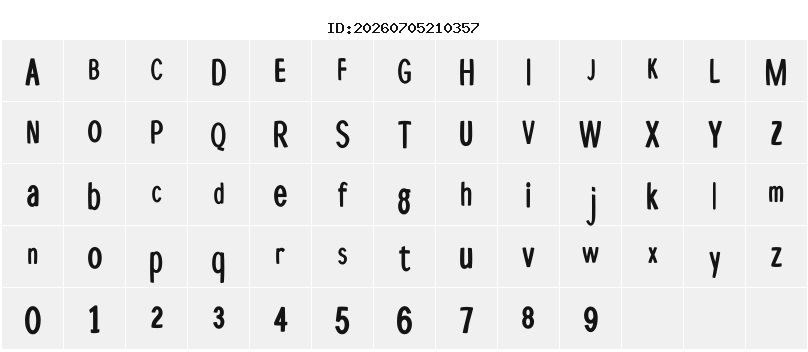
DisProporzBold. Preview
• Font Name: DisProporzBold.
• Full Font Name: DisProporzBold. Bold
• PostScript Name: DisProporzBold.-Bold
About DisProporzBold..ttf
DisProporzBold..ttf is a modern, elegant sans-serif font designed for ultimate readability and visual harmony. Perfect for branding, headlines, web design, and print materials.